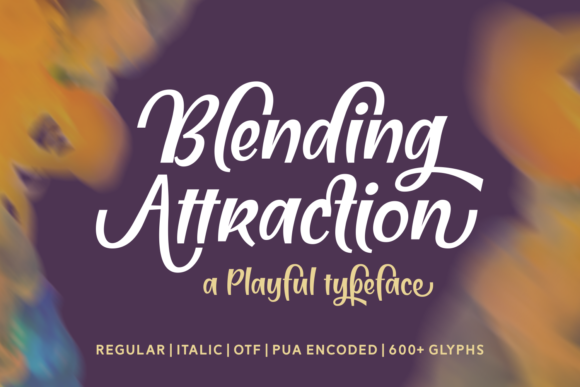
Blending Attraction Font
Blending Attraction Font is perfectly suited for romantic branding projects, beauty product packaging, fashion boutique signage, wedding invitation designs, luxury cosmetics marketing, intimate restaurant branding, sophisticated dating app interfaces, elegant jewelry advertising, and alluring lifestyle campaigns.
What makes Blending Attraction Font so exciting is its captivating charm and magnetic appeal that effortlessly draws viewers in while creating an atmosphere of sophisticated allure and romantic elegance through every gracefully designed letterform. This enchanting typeface combines sensual curves with refined sophistication, creating typography that feels both intimate and luxurious while maintaining exceptional readability across all applications. The font's distinctive flowing character shapes and harmonious proportions evoke feelings of attraction and desire while preserving professional quality and visual appeal. Blending Attraction Font stands out through its ability to convey romantic sophistication, magnetic appeal, and luxurious intimacy, making it perfect for projects that need to establish emotional connections while creating memorable experiences that celebrate beauty, romance, and sophisticated attraction.
The Blending Attraction Font family includes Light, Regular, Medium, and Bold weights, each maintaining the font's distinctive romantic character while providing design flexibility for various alluring applications. The family also features elegant swashes, romantic ligatures, and decorative elements that enhance the font's attractive appeal and provide comprehensive solutions for sophisticated romantic design projects.
The technical craftsmanship of Blending Attraction Font includes an extensive character set with uppercase and lowercase letters, numerals, punctuation marks, and romantic symbols that maintain the font's alluring character. The font incorporates advanced OpenType features including contextual alternates and flowing ligatures that create seamless romantic typography and authentic sophisticated flow throughout extended text applications.
Whether you're designing romantic brand identities, creating beauty product marketing, developing luxury relationship services, or crafting designs that need to convey sophisticated attraction and romantic elegance, Blending Attraction Font delivers the perfect combination of magnetic appeal and contemporary functionality that makes your projects emotionally compelling and romantically memorable for audiences seeking genuine sophistication and elegant romantic experiences.